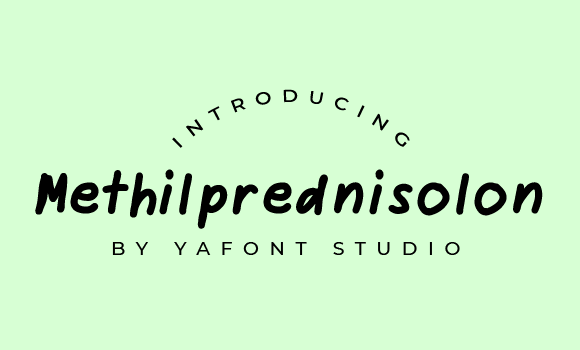
methilprednisolon
Methilprednisolon Font – Free Download Introduction to Methilprednisolon Font Methilprednisolon is a sweet and friendly handwritten font. 📸 Preview Gallery 2 images 📌 Product Name Methilprednisolon Font 👤 Author Ciriative 📂 Category Explore ⬇️ Download Methilprednisolon Font FREE Free Download